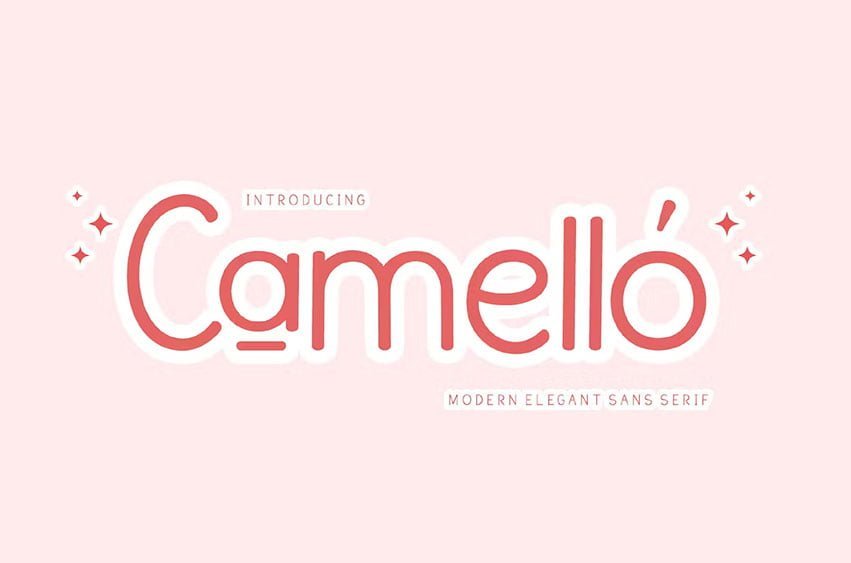
Camello is a modern elegant sans serif font with some various alternates and ligatures that suitable for branding, business, logos, and others
Multilingual Uppercase alphabet A-Z Lowercase alphabet a-z Alternate Character Numbers 0-9 Some punctuation